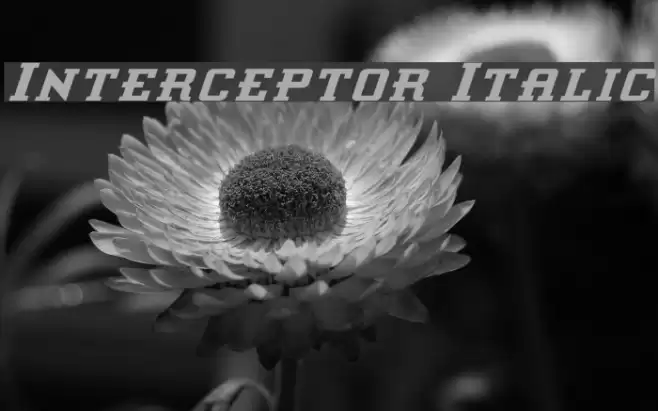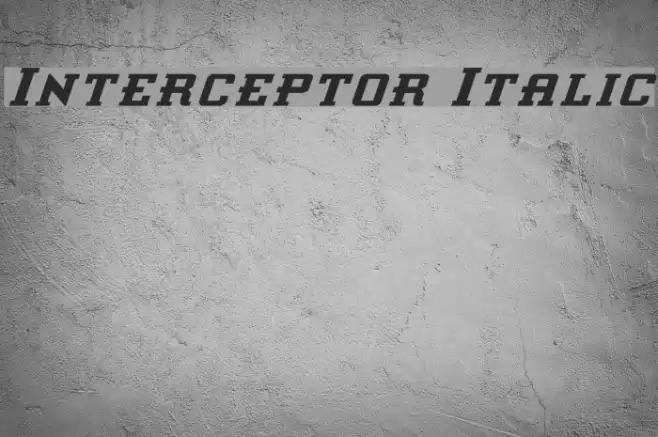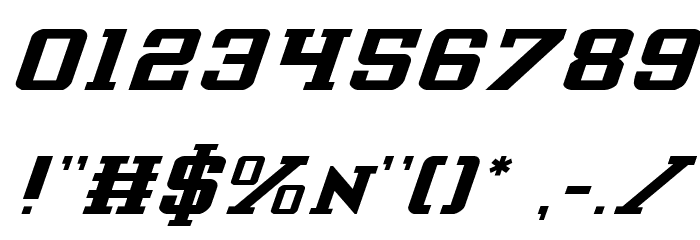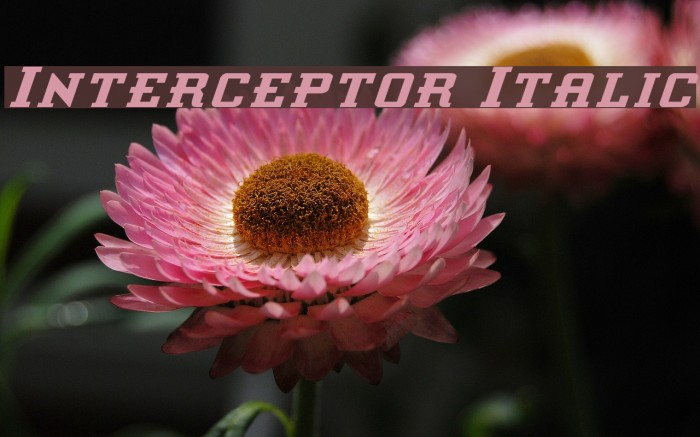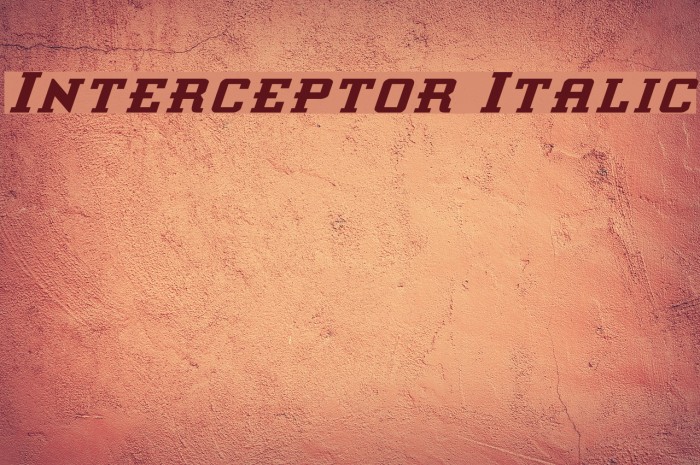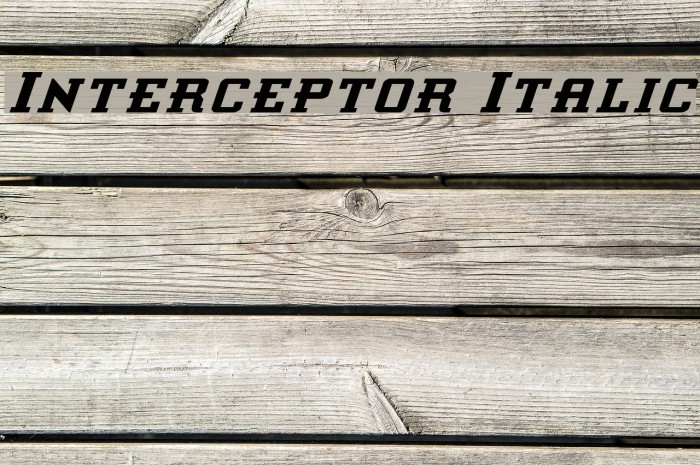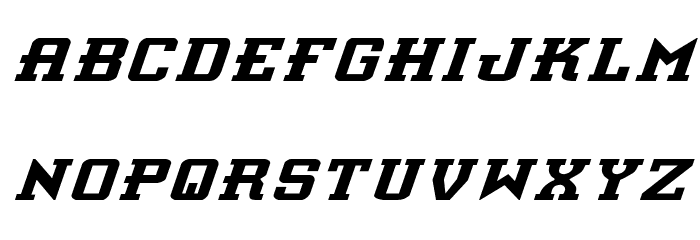
Interceptor Italic Font
Interceptor Italic Description
This font exhibits a bold, italicized style with a strong presence. The characters are sharply angled, giving a sense of motion and dynamism. Each letter features a distinct slant, enhancing the italic effect. The strokes are thick and consistent, providing a robust and impactful appearance. The numbers and special characters maintain the same boldness and slant, ensuring uniformity across all glyphs. This font is designed to stand out, making it suitable for attention-grabbing headlines or titles.
A bold, italicized font with sharp angles and a dynamic presence from Uncategorized fonts.
- Proposed Projects: Ideal for sports branding, action movie posters, automotive logos, and dynamic event flyers.